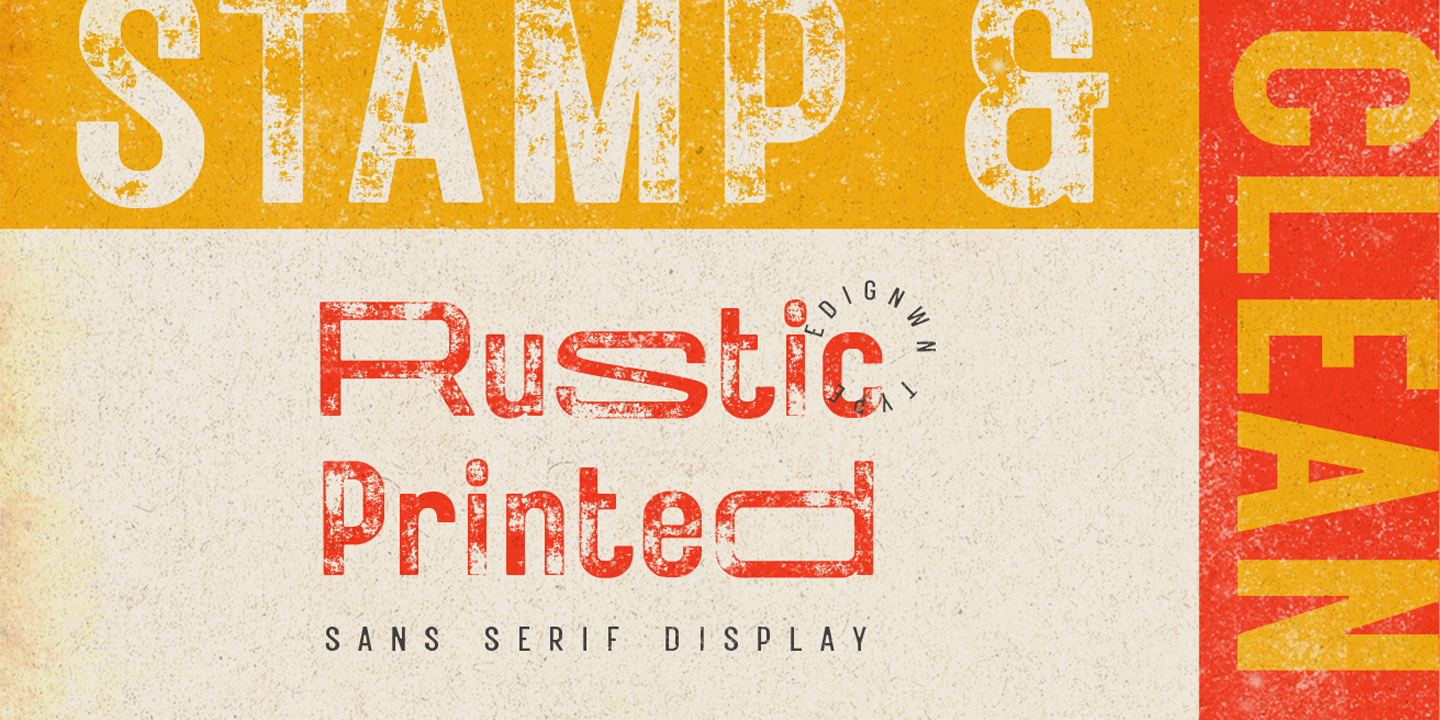
The Rustic Printed Font excels in various design applications including farmhouse restaurant branding, vintage craft product packaging, rustic wedding invitations, country store signage, artisanal food marketing, heritage tourism materials, antique shop communications, barn venue promotions, handmade craft labels, and nostalgic brand identities that demand authentic rural charm and weathered printing aesthetics.
What makes the Rustic Printed Font exciting is its authentic recreation of vintage letterpress printing techniques combined with rustic weathering effects that capture the essence of old-fashioned country printing shops and rural typography traditions. This typeface embodies the charm of handcrafted printing through carefully distressed letterforms that suggest the natural wear patterns, ink variations, and paper textures of traditional printing methods. The font's nostalgic personality makes it perfect for brands seeking to evoke memories of simpler times and authentic craftsmanship through typography that genuinely looks like it emerged from a vintage country print shop.
The Rustic Printed Font family typically includes multiple distressing variations that enhance the vintage printing aesthetic, featuring different weathering levels, ink texture effects, and rustic styling options. These family options often include alternate characters with unique distressing patterns, vintage ornaments, and period-appropriate symbols that provide designers with comprehensive tools for creating authentically rustic typography that celebrates traditional printing craftsmanship and rural heritage.
Heritage brand creators and countryside businesses consistently choose Rustic Printed Font Free Download for projects requiring typography that communicates authentic rural character and vintage printing quality. This typeface delivers exceptional performance in farmhouse branding, artisanal product marketing, and heritage communications where establishing genuine connection to traditional craftsmanship and rural values is essential for brand authenticity. The font's printed character makes it particularly effective for handmade and organic product applications. Download Rustic Printed Font Free Download today to access this charming typeface that transforms brand communications with its vintage printing authenticity and rustic sophistication, creating compelling nostalgic experiences that celebrate the timeless appeal of traditional printing methods and countryside charm.